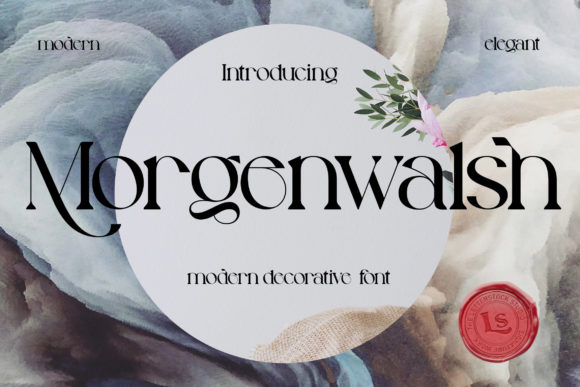
**Morgenwalsh: The Epitome of Sophistication and Style for Your CV**
Prepare to be captivated by Morgenwalsh, the exquisite serif font that exudes timeless elegance and sophistication. Its meticulously crafted curves and impeccable detailing will elevate your CV to an unparalleled level of distinction, setting you apart from the crowd.
Immerse yourself in Morgenwalsh's alluring versatility. Whether you're seeking to convey professionalism, creativity, or a touch of personal flair, this font effortlessly adapts to your vision. Let your words dance gracefully across the page, commanding attention with their refined and polished appearance.
Morgenwalsh is more than just a font; it's a powerful tool that empowers you to craft a CV that truly reflects your worth. With its captivating style, you'll exude confidence and leave a lasting impression on potential employers. Embrace the transformative power of Morgenwalsh and watch your career aspirations soar to new heights.
**Why Choose Morgenwalsh?**
- Its timeless serif design exudes an air of authority and professionalism.
- Embrace its versatility to effortlessly match your personal style and career aspirations.
- Experience the joy of creating visually stunning CVs that captivate and inspire.
- Elevate your CV to a masterpiece that reflects your unwavering dedication and excellence.
Don't settle for mediocrity; choose Morgenwalsh and unlock the gateway to a truly exceptional CV. Let your words shine brighter than ever before, and embark on a journey towards career success.